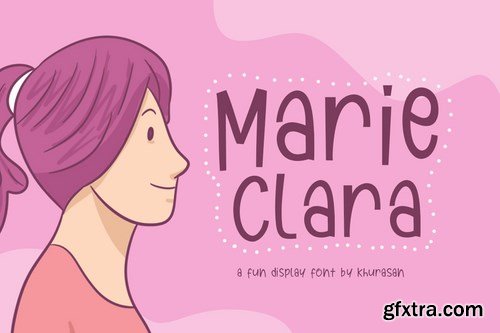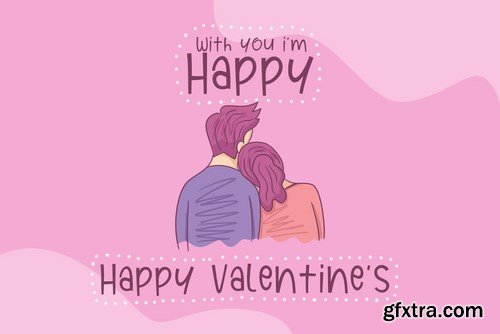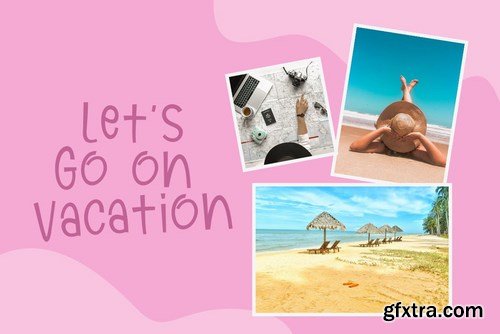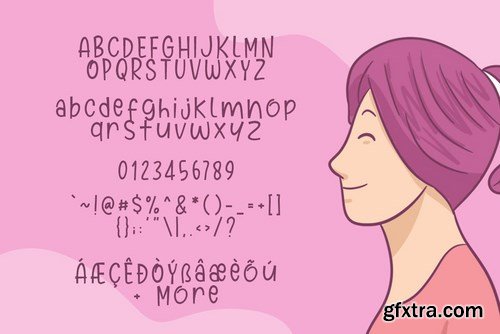
The Marie Clara is a fun display font, fresh & modern style. Marie Clara Font suitable for logo, branding, greeting card, poster and any design that you create.